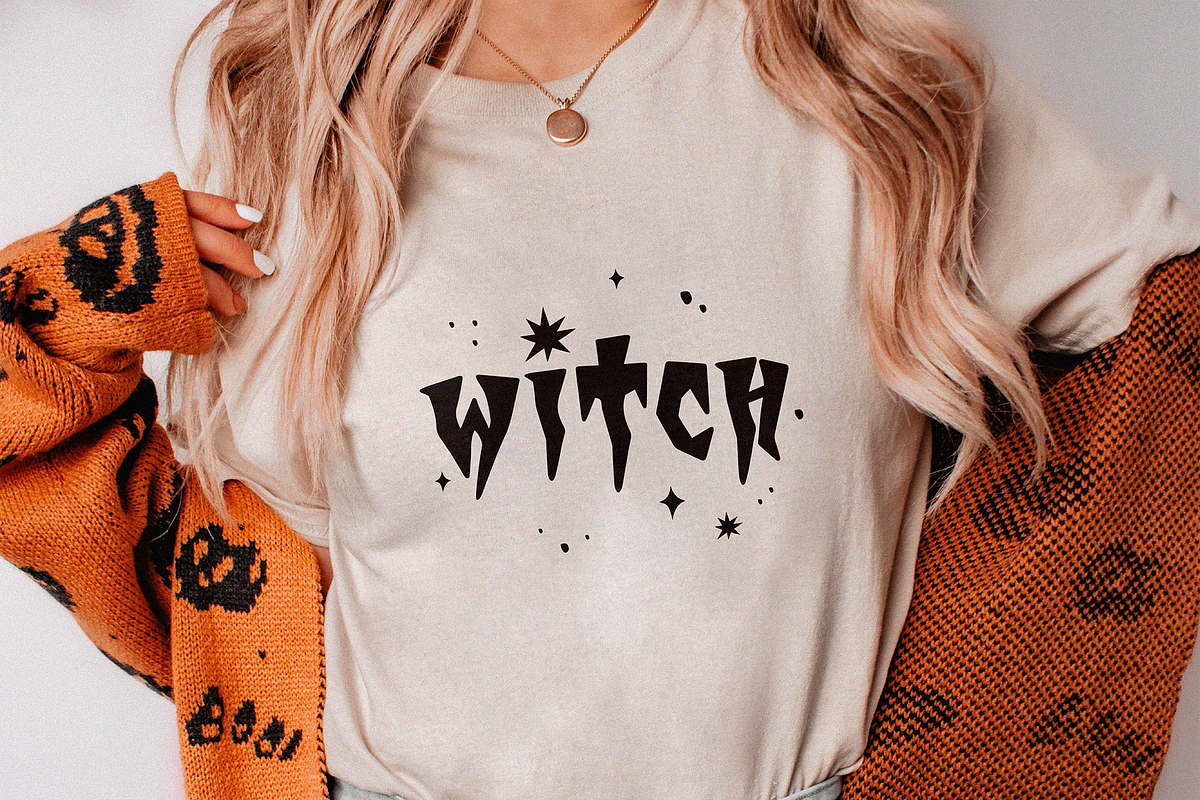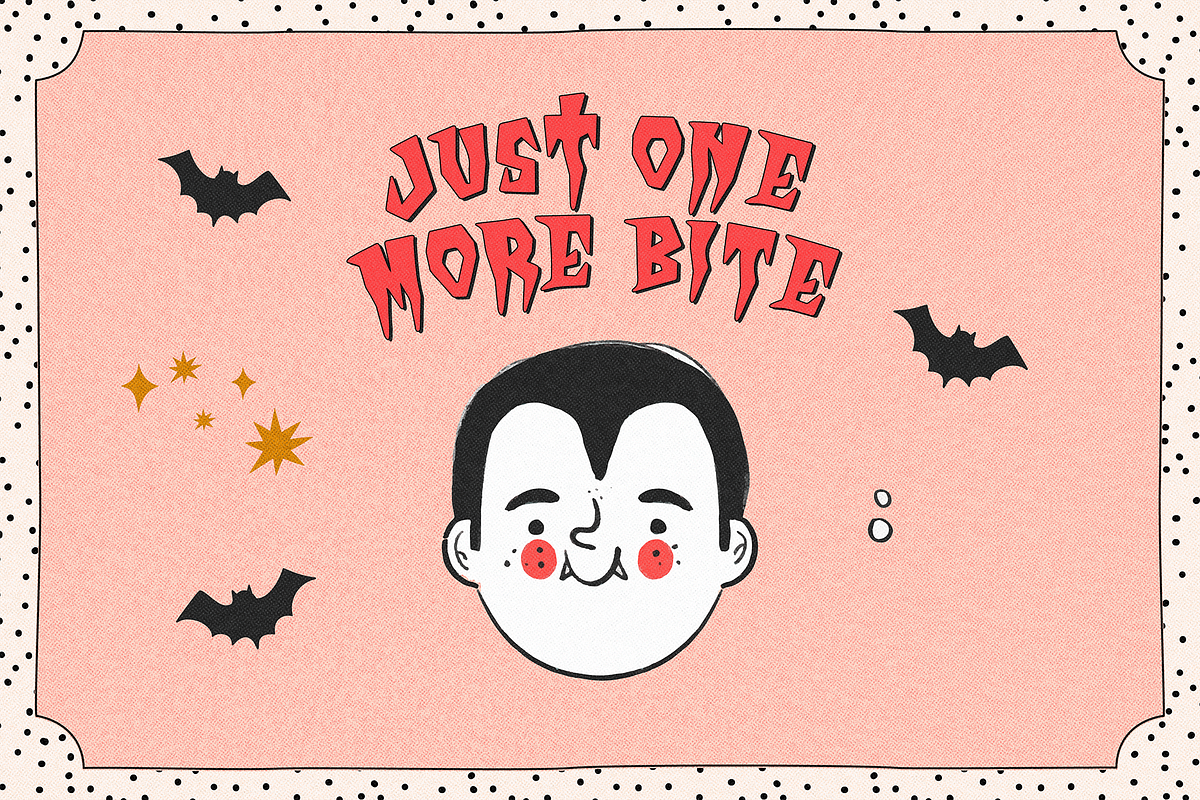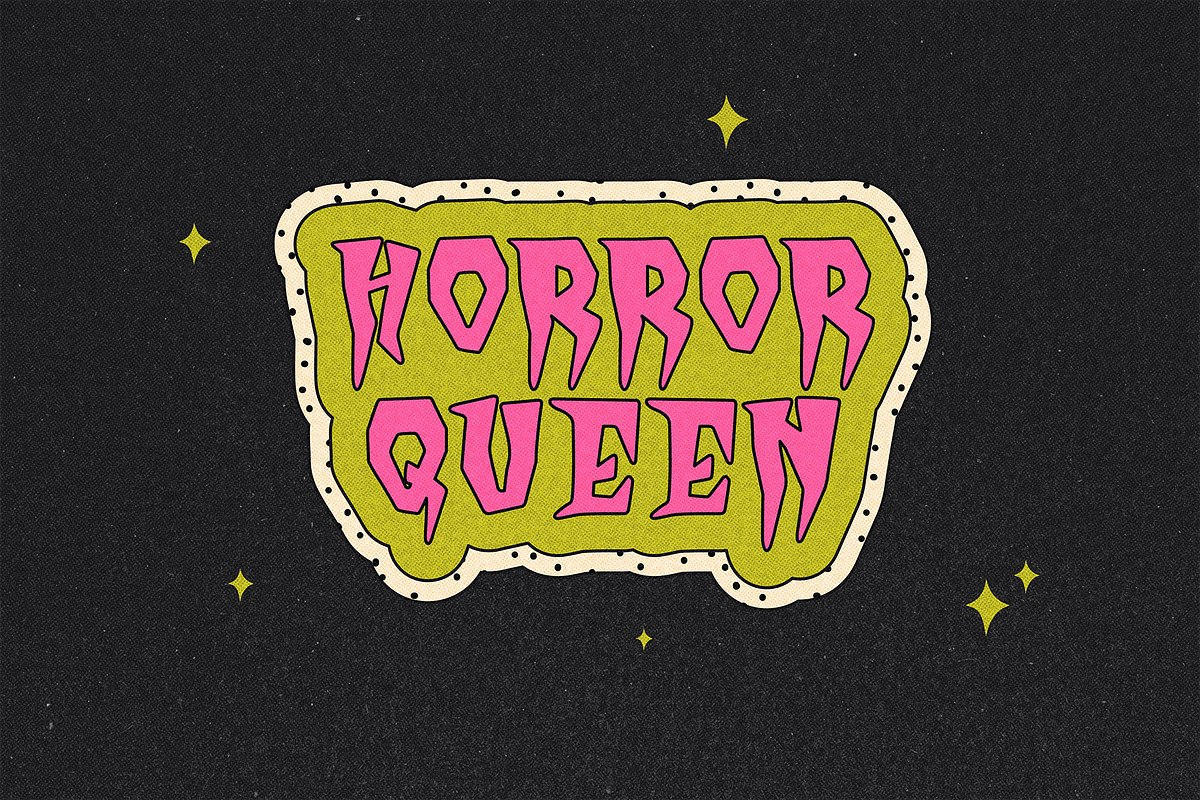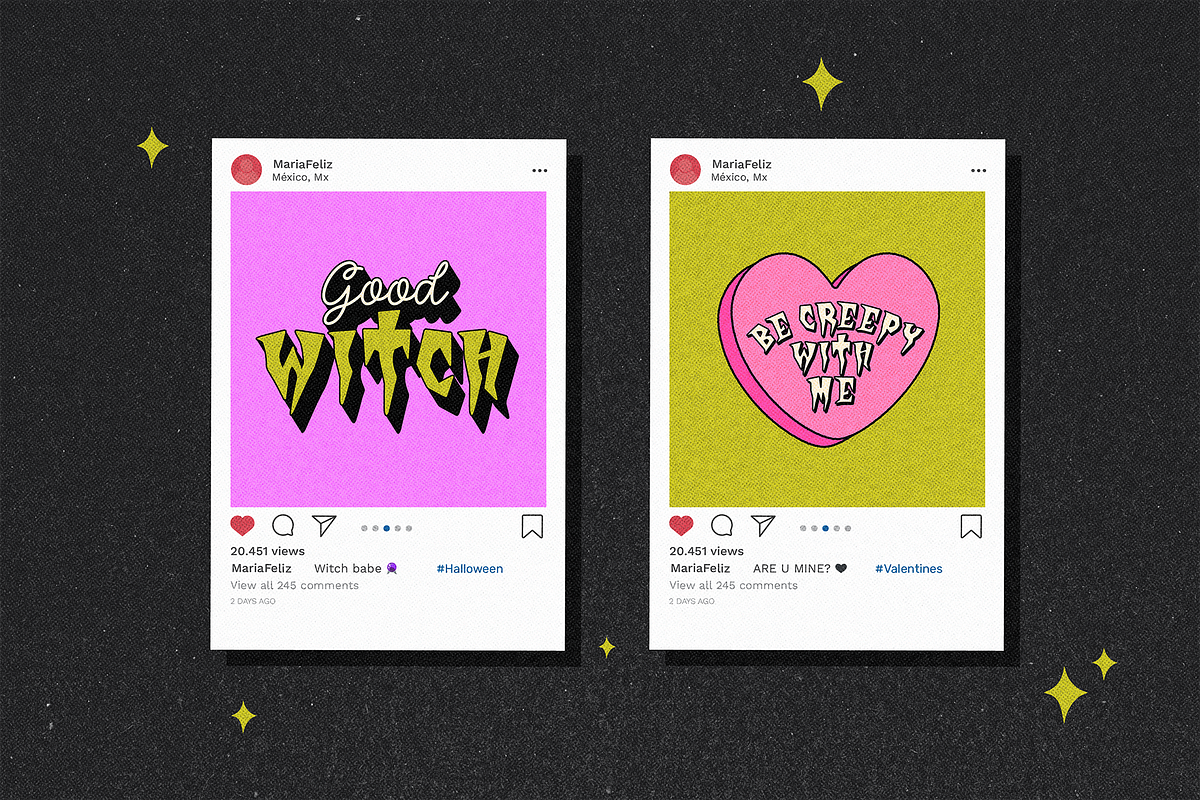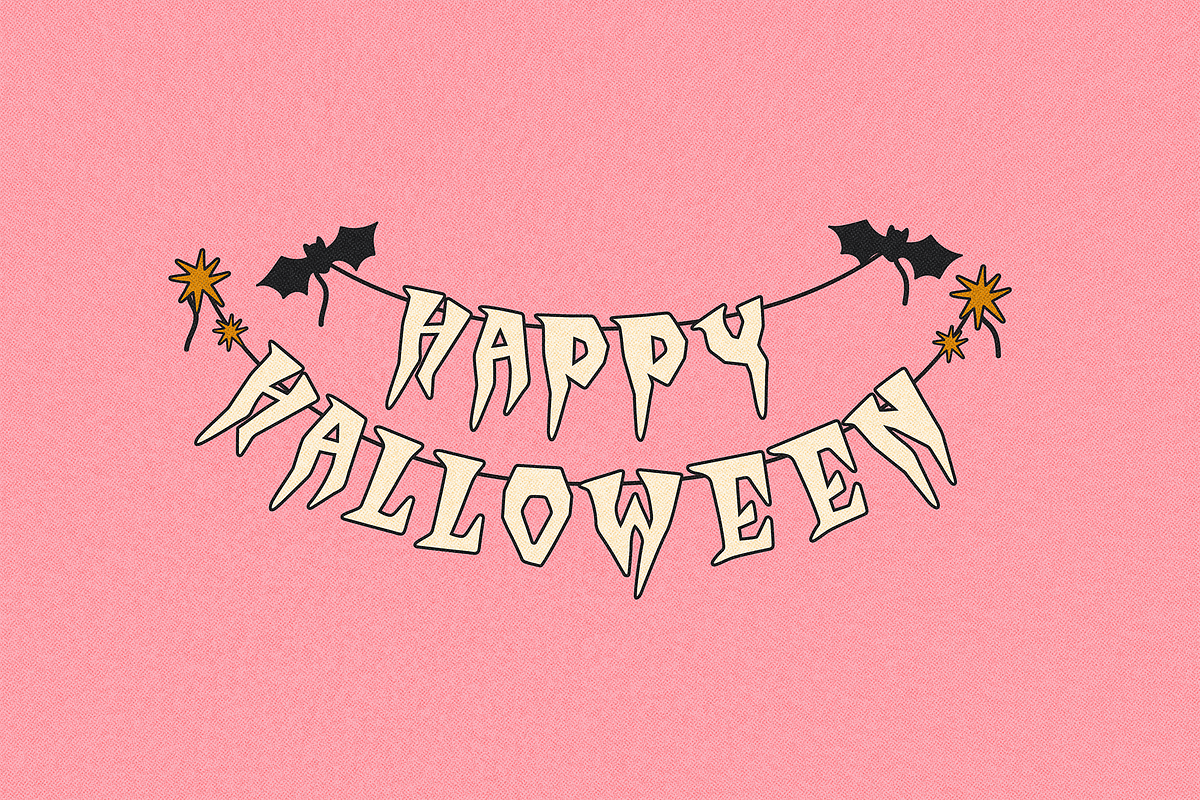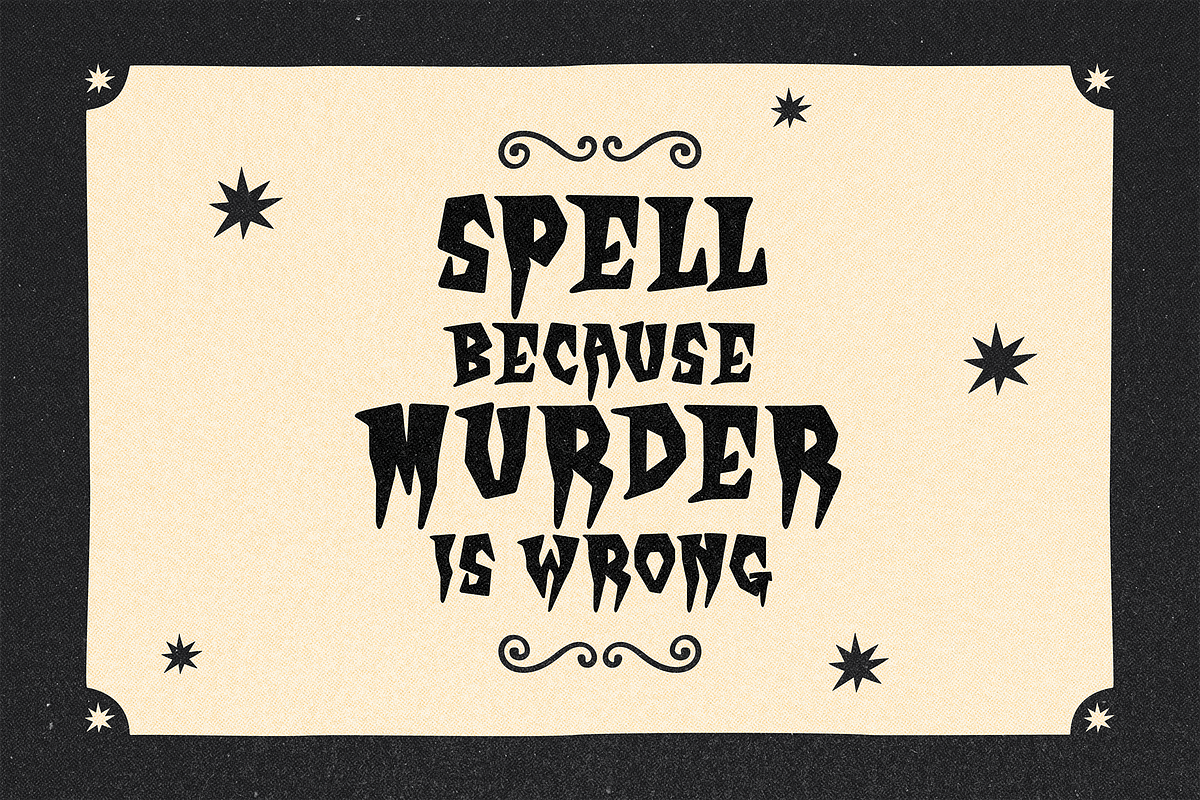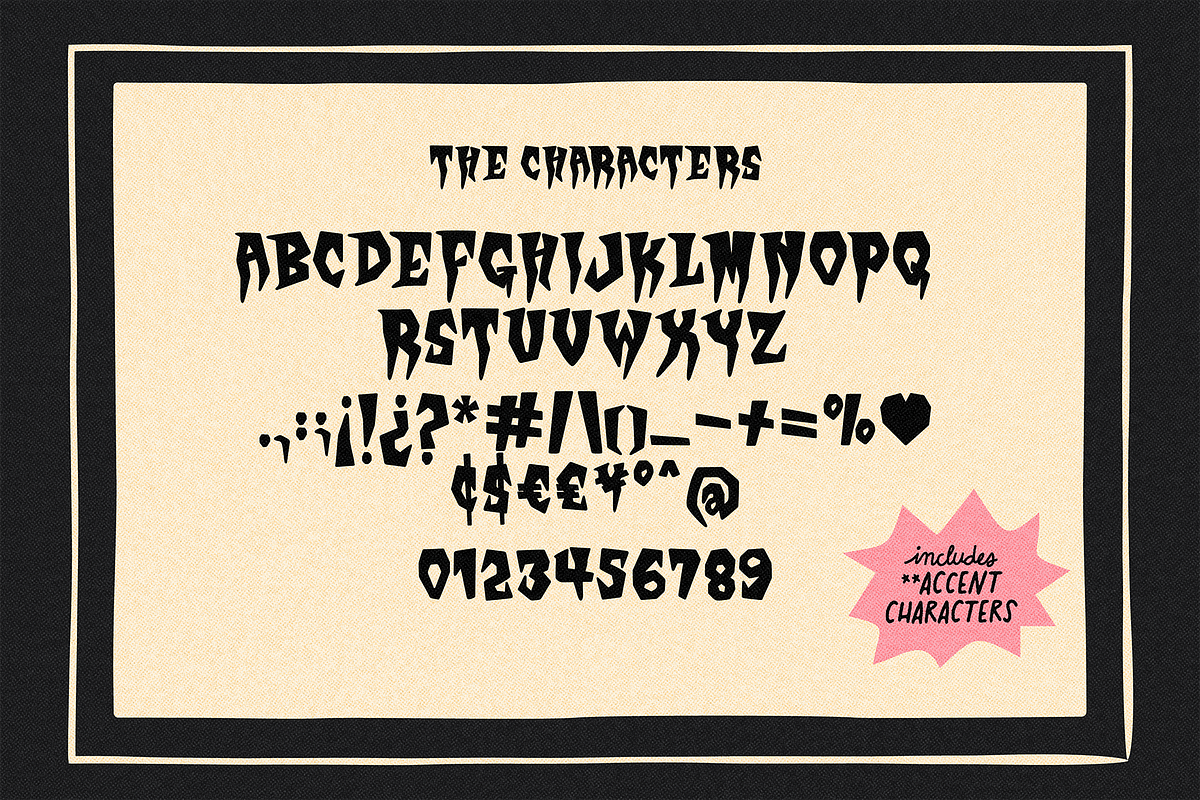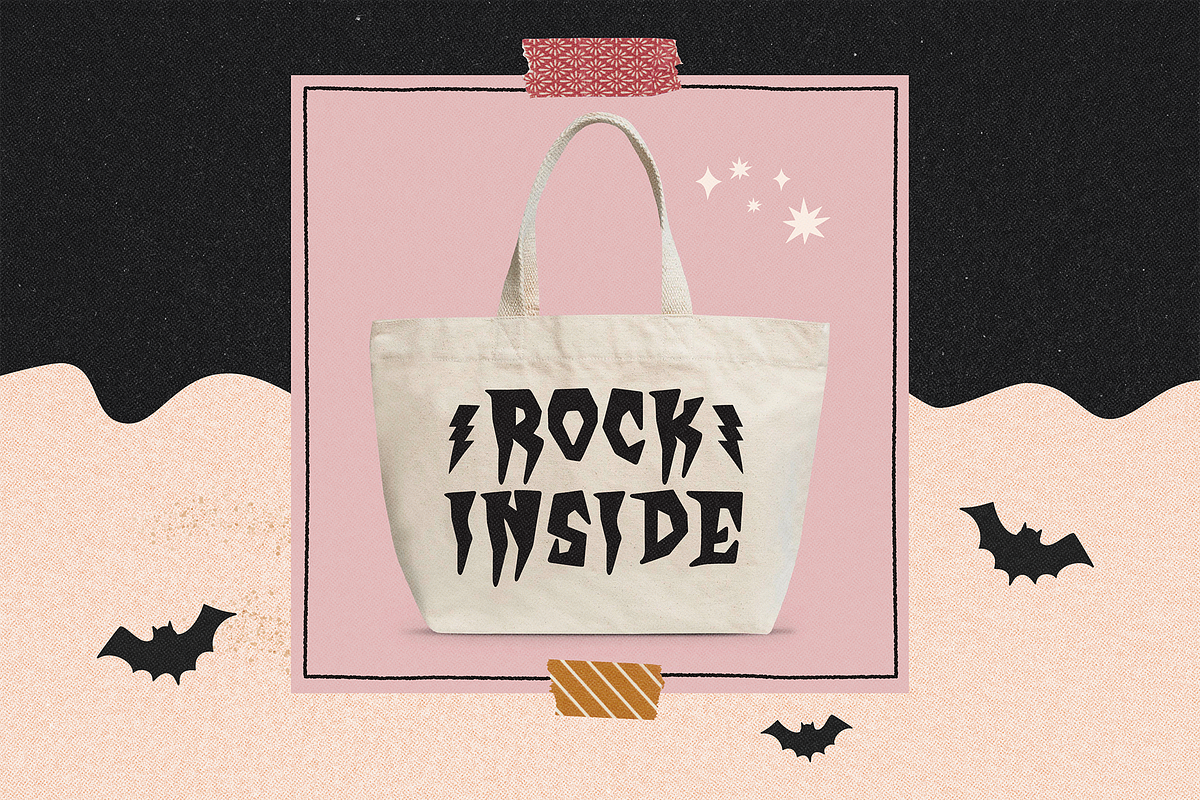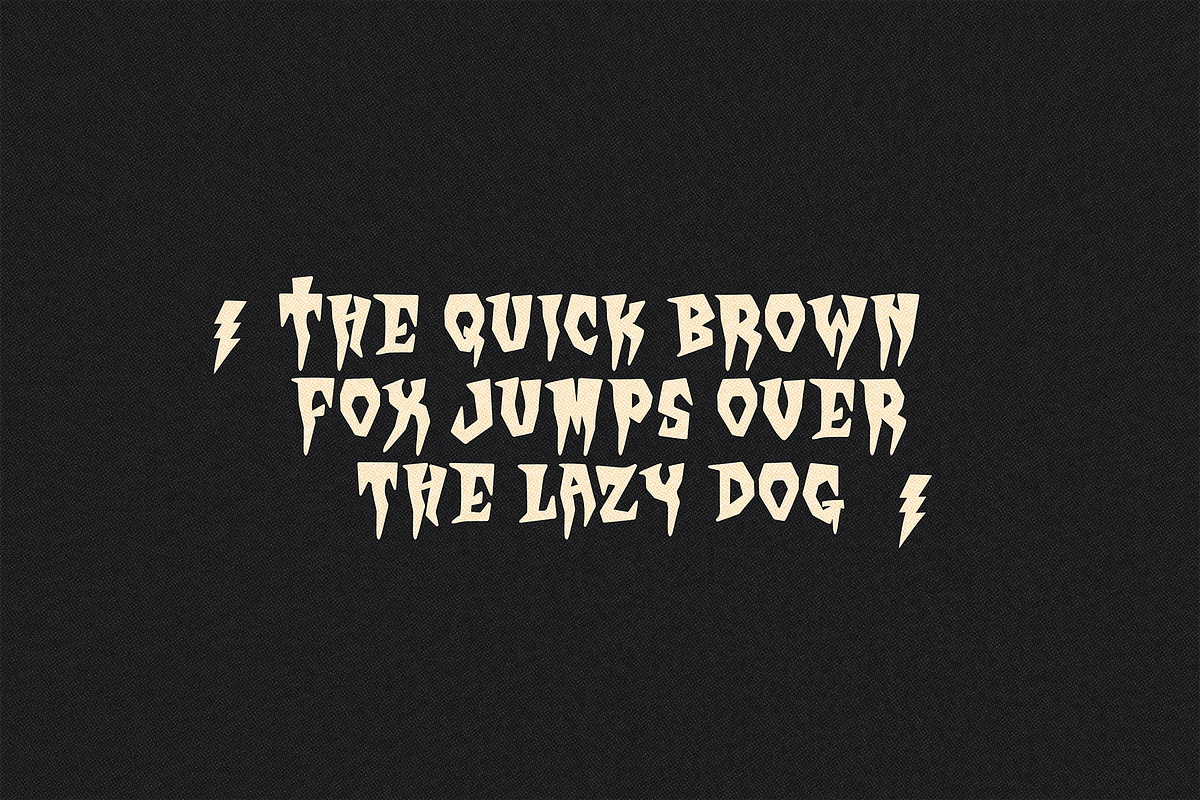
MOMSTER | FREAKY AND SPOOKY FONT
MOMSTER - Playful and Perfectly Spooky Font
Introducing MOMSTER, a hand-drawn font packed with Halloween charm. Perfect for creating eye-catching posters, mugs, stickers, t-shirts, and more. MOMSTER adds a touch of witches, ghosts, and spooky fun to any design.
Embrace the Halloween spirit and the spookiness and let your creativity run wild with this enchanting font!
✷ Use the 9 symbols included to make cute/cool compositions.
- Period centered symbol · – Lightning
- Bar symbol | – Cauldron
- Left Curly Bracket { – Curls decor
- Right Curly Bracket } – Curls decor
- Left square bracket [ – Bat
- Right square bracket ] – Insect
- Ampersand & – Heart
- less – Star 1
- Greater – Star 2
Momster’s unique style brings a whimsical and creepy flair to your creations 🎃👻